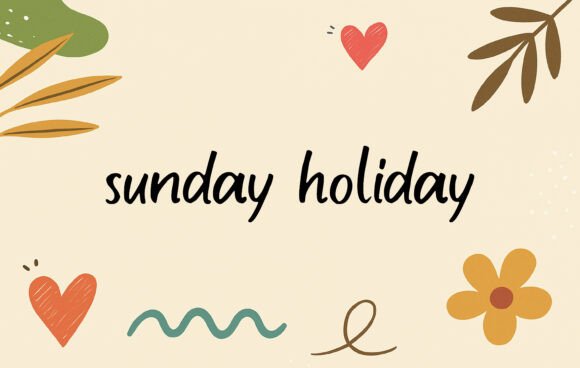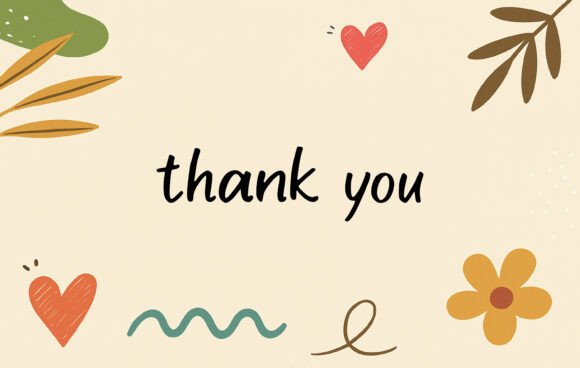
Discover the Elegance of Amelia Font: Elevate Your Designs with Style
Are you on the hunt for a font that can take your creative projects to new heights? Look no further than Amelia Font, a stunning typeface designed to make your designs shine. With its perfect blend of legibility and style, Amelia Font is the ideal choice for a wide range of applications, from magazine headlines to wedding invitations, and everything in between.
A Font Designed for Versatility
Amelia Font is crafted to be a true favorite among designers and crafters alike. Its clean lines, elegant curves, and precise spacing make it an excellent choice for both title and body text. Whether you’re working on a bold magazine headline or a delicate wedding invitation, this font is sure to impress. Its versatility is unmatched, allowing you to use it across various platforms, including:
• Magazine headlines and articles
• T-shirts and apparel
• Branding and advertising materials
• Cards and greeting cards
Why Choose Amelia Font?
So, what sets Amelia Font apart from other typefaces? Here are just a few reasons why designers and crafters are falling in love with this font:
• Legibility: Amelia Font is designed to be easy to read, making it perfect for body text and long-form content.
• Style: With its elegant curves and clean lines, Amelia Font adds a touch of sophistication to any design.
• Flexibility: Use Amelia Font for both title and body text, or mix and match to create visual interest.
• Uniqueness: Amelia Font has a distinctive character that sets it apart from more traditional typefaces.
Tips for Using Amelia Font
To get the most out of Amelia Font, here are a few tips to keep in mind:
• Experiment with font sizes: Amelia Font looks great at a range of font sizes, from large headlines to smaller body text.
• Play with font colors: Try pairing Amelia Font with bold colors or subtle gradients to add visual interest.
• Mix and match with other fonts: Combine Amelia Font with other typefaces to create a unique and eye-catching design.
Amelia Font is a dream come true for designers and crafters who want to elevate their projects with a stylish and legible typeface. Whether you’re working on a client project or a personal creative endeavor, this font is sure to inspire. With Amelia Font, you can:
• Streamline your design process: With a versatile font like Amelia Font, you can focus on the creative aspects of your project rather than searching for the perfect typeface.
• Enhance your brand: Use Amelia Font to create a consistent visual identity for your brand or client.
• Add a personal touch: With its elegant character, Amelia Font is perfect for adding a personal touch to your designs.
In conclusion, Amelia Font is a must-have for any designer or crafter looking to elevate their creative projects. With its perfect blend of legibility, style, and versatility, this font is sure to become a favorite in your collection. Whether you’re working on a bold magazine headline or a delicate wedding invitation, Amelia Font has the potential to take your designs to the highest level.